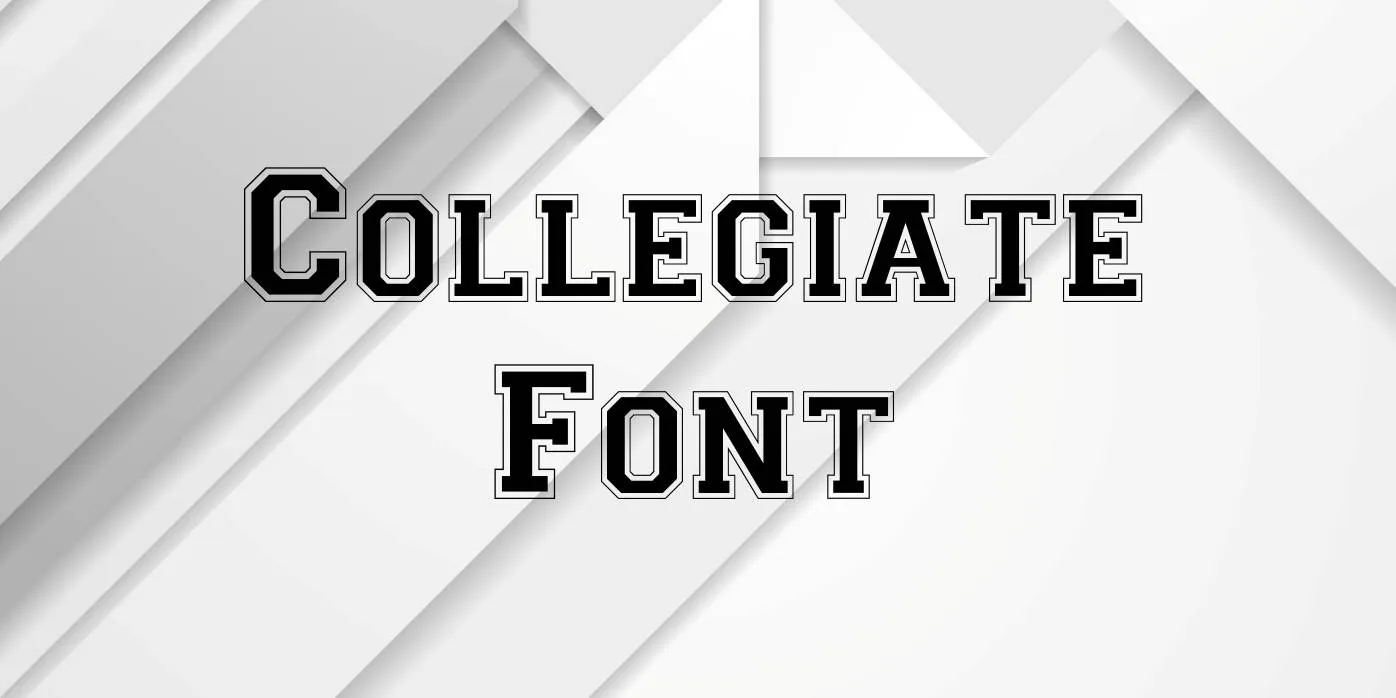
Collegiate Font
Collegiate Font belongs to the display font family. This family was developed by ShyFonts. The family currently contains 1 weight: Regular. This font was designed with an open mind and a lot of inspiration from early 20th-century college and university fonts.
The result is a sturdy, workmanlike typeface that is both legible and readable. The Collegiate Font family has been specifically designed for use in headlines, titles, and short blocks of text. It’s also great for creating logos, badges, and other graphic design elements. You can use its copy and paste function for various designs.